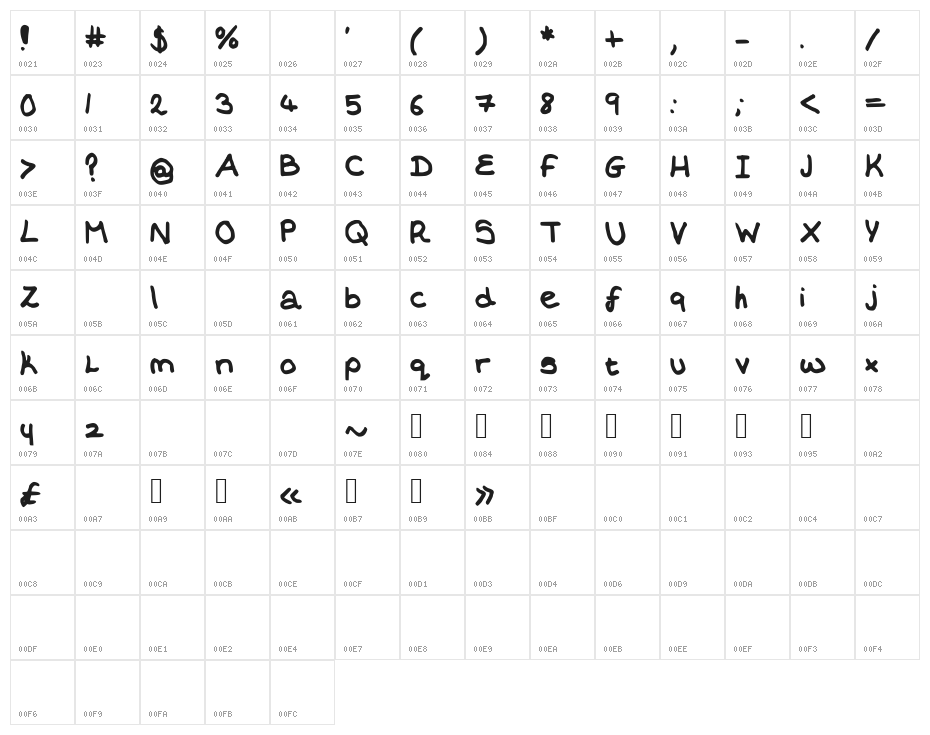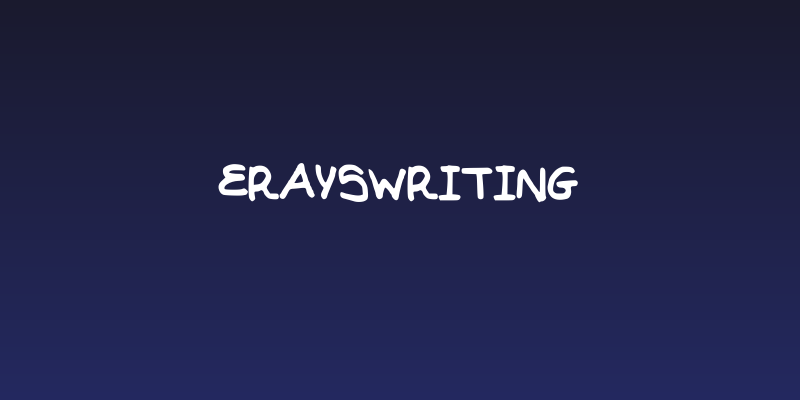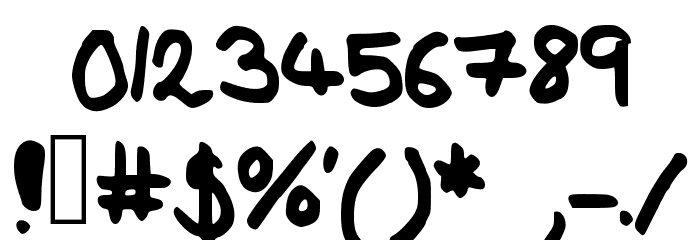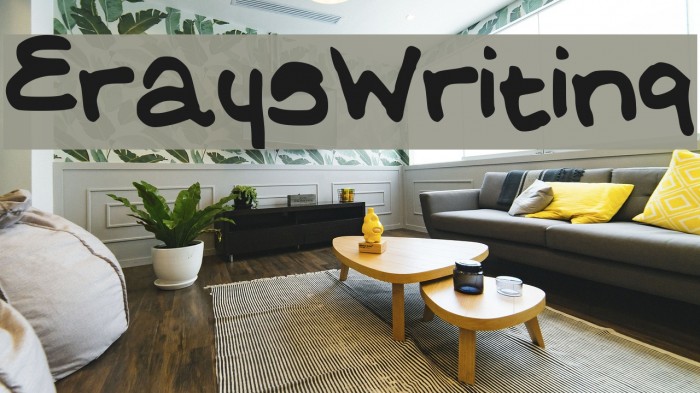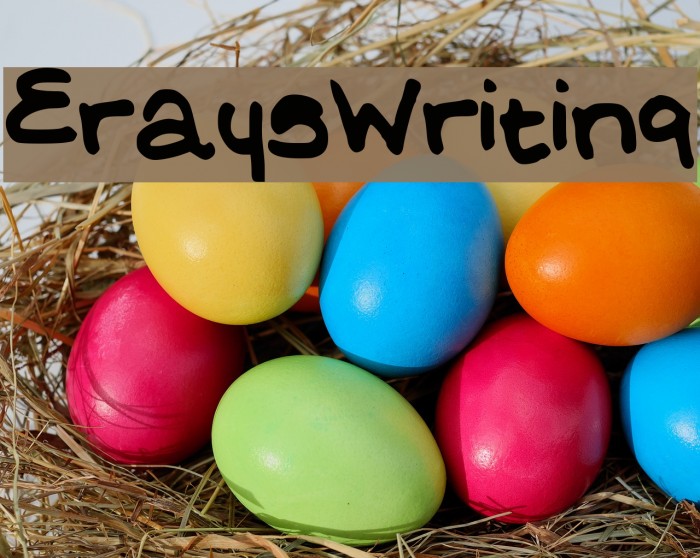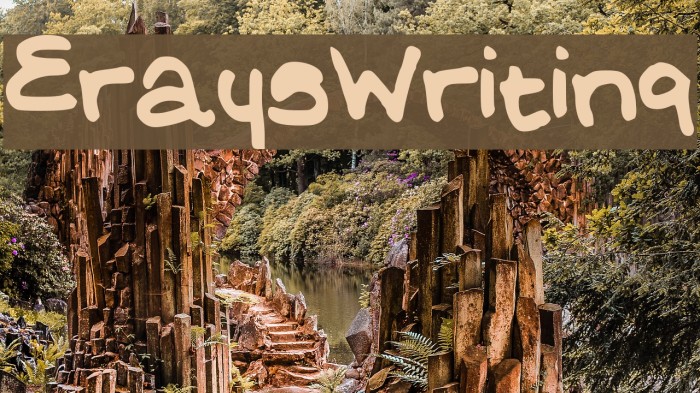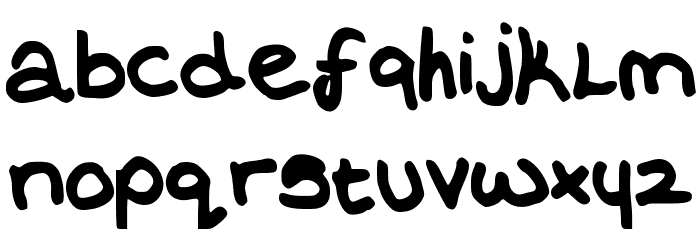
EraysWriting Font
EraysWriting Description
This playful and bold handwritten font features a casual and friendly style, characterized by its rounded and slightly irregular letterforms. The strokes are thick and consistent, giving it a strong presence while maintaining a relaxed and approachable feel. The uppercase and lowercase letters are well-balanced, with a slight slant that adds to its informal charm. The numerals and special characters are crafted with the same playful aesthetic, making it versatile for various creative applications. Its unique style is perfect for projects that require a personal touch or a fun, engaging look.
| Proposed Projects | Ideal for children's books, greeting cards, playful branding, and casual invitations. |